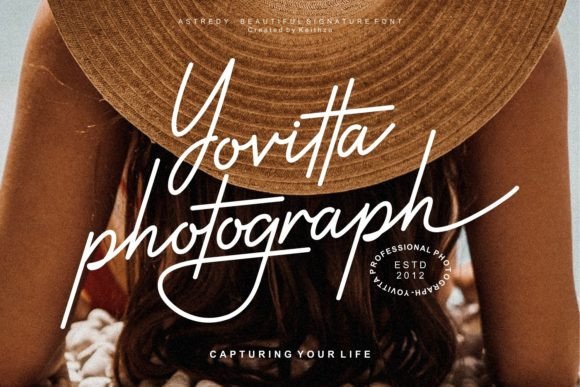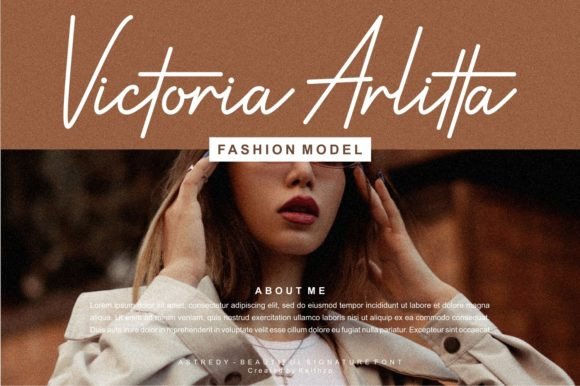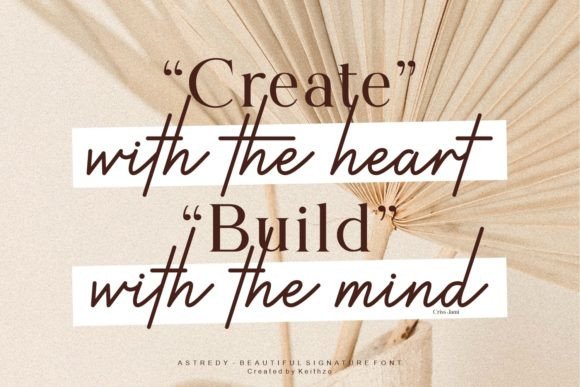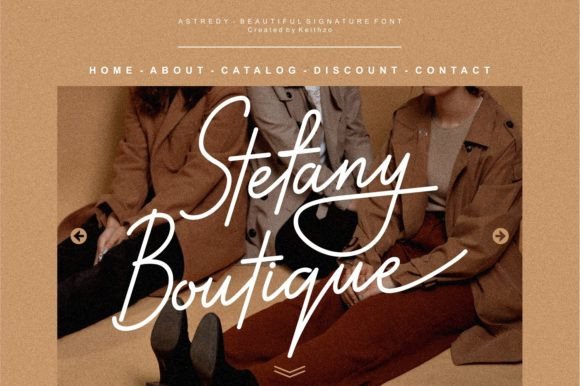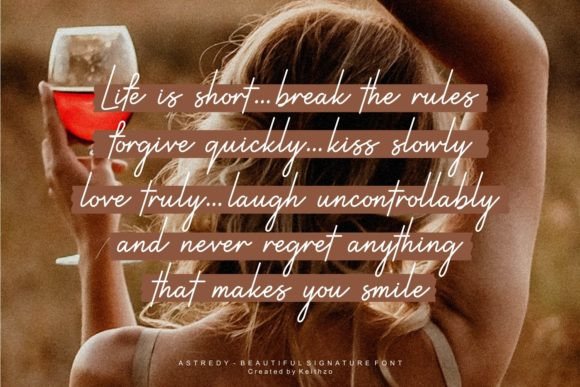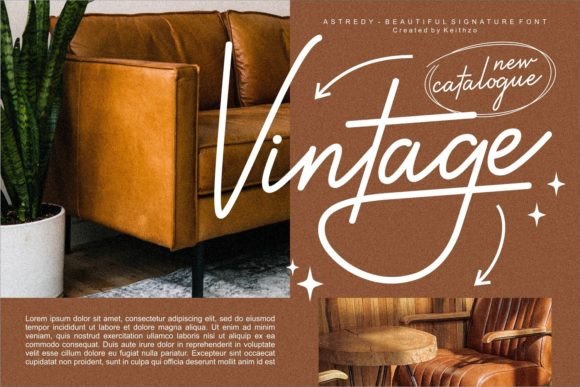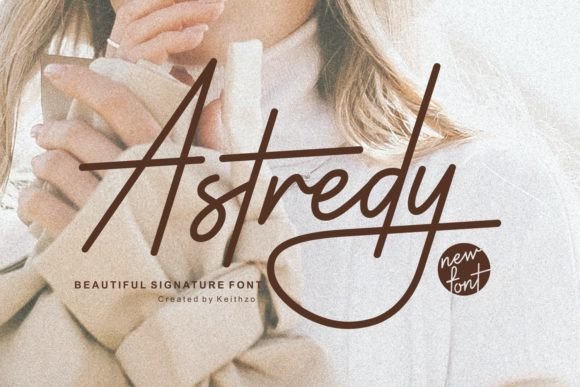
Astredy Font: Elevate Your Designs with Timeless Elegance
Are you searching for a font that embodies both charm and sophistication? Look no further than the Astredy Font, a stunning handwritten typeface that is sure to elevate your design projects to new heights. With its graceful, flowing lines and refined curves, this beautiful font is perfect for designers and crafters seeking to add a touch of timeless beauty to their work.
The Unique Characteristics of Astredy Font
What sets Astredy Font apart from other typefaces is its intricate details and gentle, natural imperfections. These subtle nuances add a touch of whimsy and personality to your designs, making them truly one-of-a-kind. The font’s sophisticated curves and flowing lines create a look that is both elegant and refined, perfect for a wide range of design applications.
One of the most convenient features of Astredy Font is its PUA (Private Use Area) encoding. This means that you can access all the delightful glyphs and swashes effortlessly, without having to navigate complex font menus or install additional software. With PUA encoding, you can simply select the glyphs and swashes you need and incorporate them into your design with ease.
Whether you’re working on a branding project, creating a logo, or designing a marketing campaign, Astredy Font is the perfect choice. Its versatility and elegance make it suitable for a wide range of design applications, including:
- Marketing materials and advertising
- Stationery and business cards
- Digital graphics and social media assets
Why Choose Astredy Font?
With so many fonts available, why choose Astredy Font for your design projects? Here are just a few reasons:
- Unique and distinctive: Astredy Font offers a unique and distinctive look that will set your designs apart from the crowd.
- Elegant and refined: The font’s sophisticated curves and flowing lines create a look that is both elegant and refined.
- Easy to use: With PUA encoding, accessing glyphs and swashes is simple and straightforward.
- Versatile: Astredy Font is suitable for a wide range of design applications, from logos and branding to marketing materials and digital graphics.
Tips for Using Astredy Font
To get the most out of Astredy Font, here are a few tips:
- Experiment with different sizes: Astredy Font looks great in a variety of sizes, from large headings to smaller body text.
- Play with glyphs and swashes: With PUA encoding, you can easily access a range of glyphs and swashes to add personality and interest to your designs.
- Pair with complementary fonts: Astredy Font pairs well with a range of other fonts, so don’t be afraid to experiment and find the perfect combination for your design.
In conclusion, Astredy Font is a truly exceptional typeface that offers a unique combination of elegance, sophistication, and whimsy. With its PUA encoding and versatile design, it’s perfect for a wide range of design projects. Whether you’re a designer, crafter, or simply someone who appreciates beautiful typography, Astredy Font is sure to become a favorite in your collection.